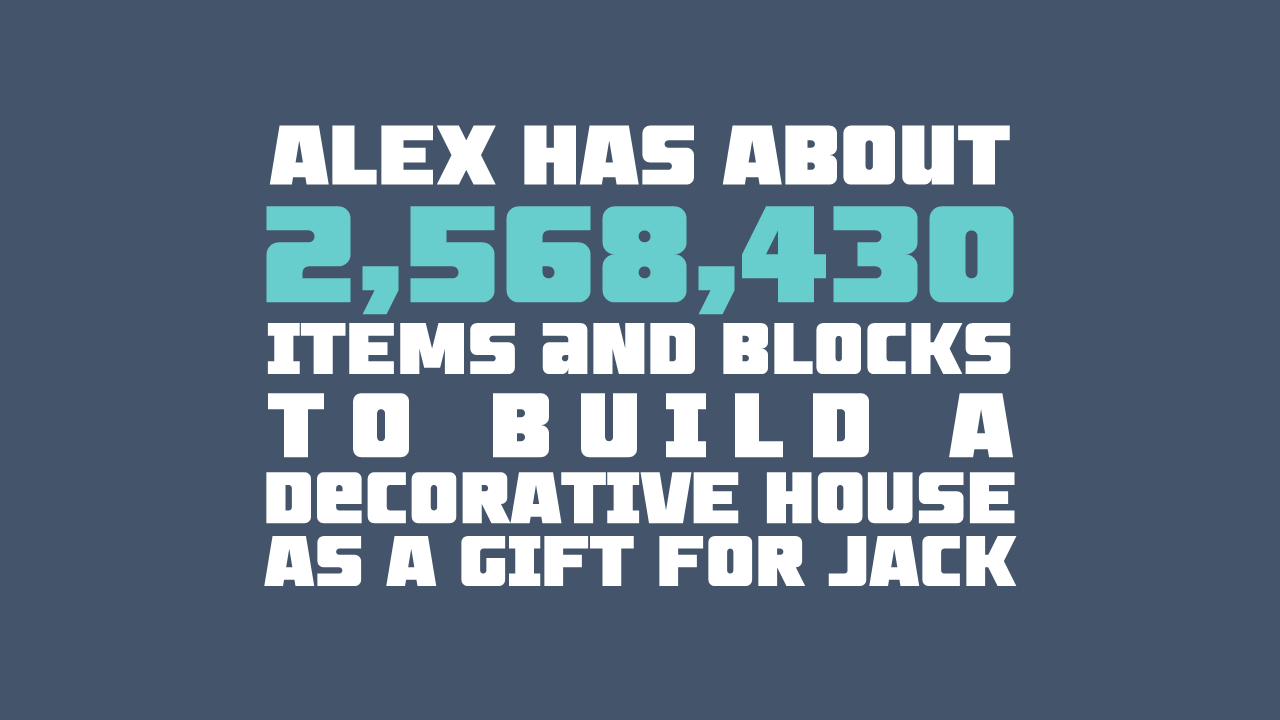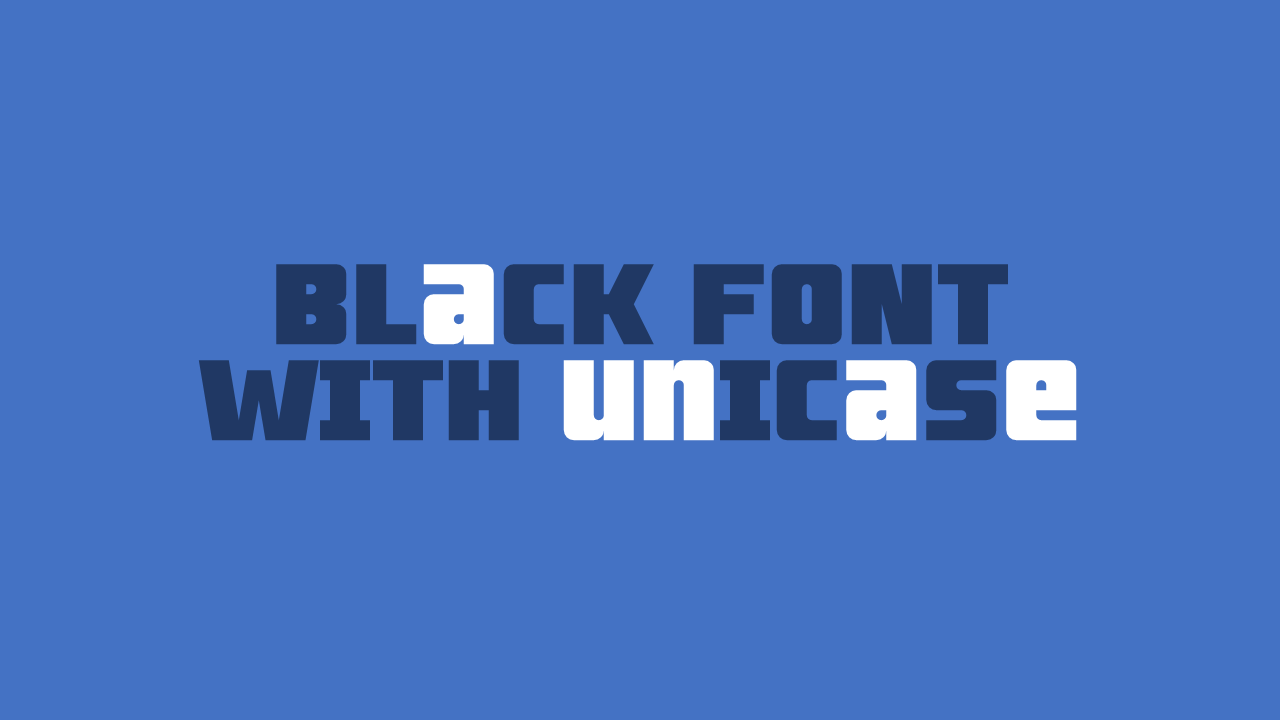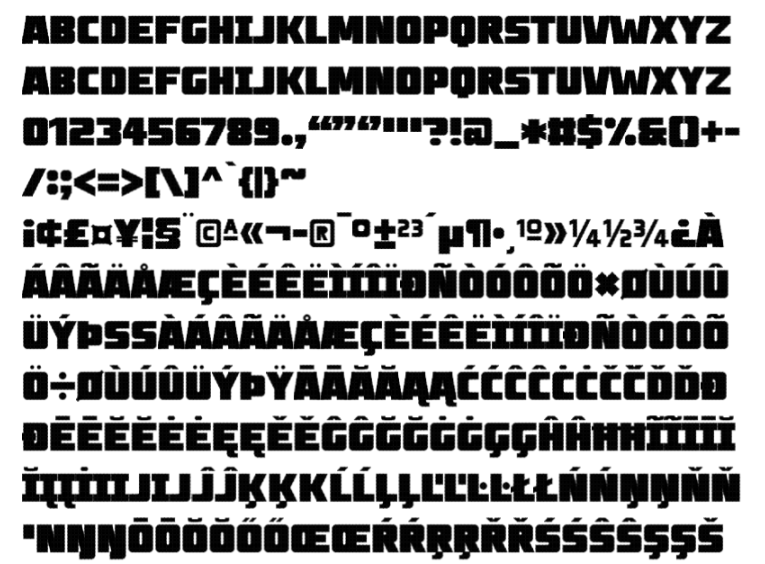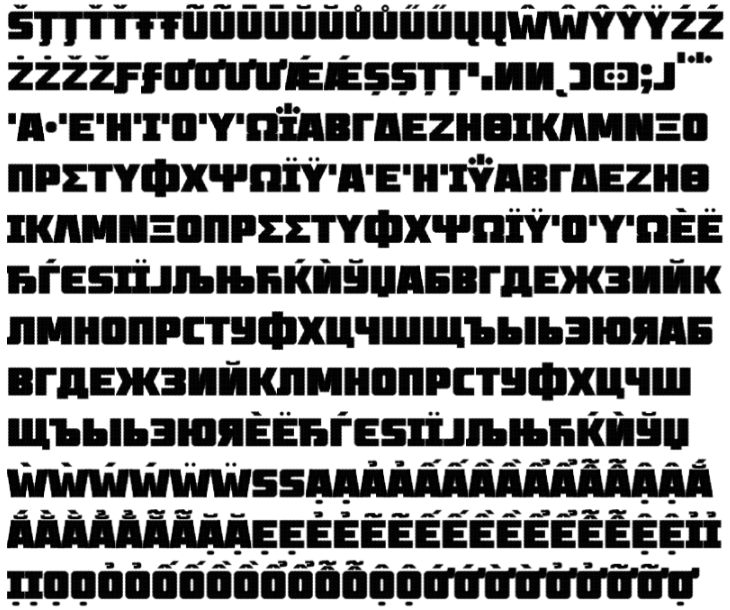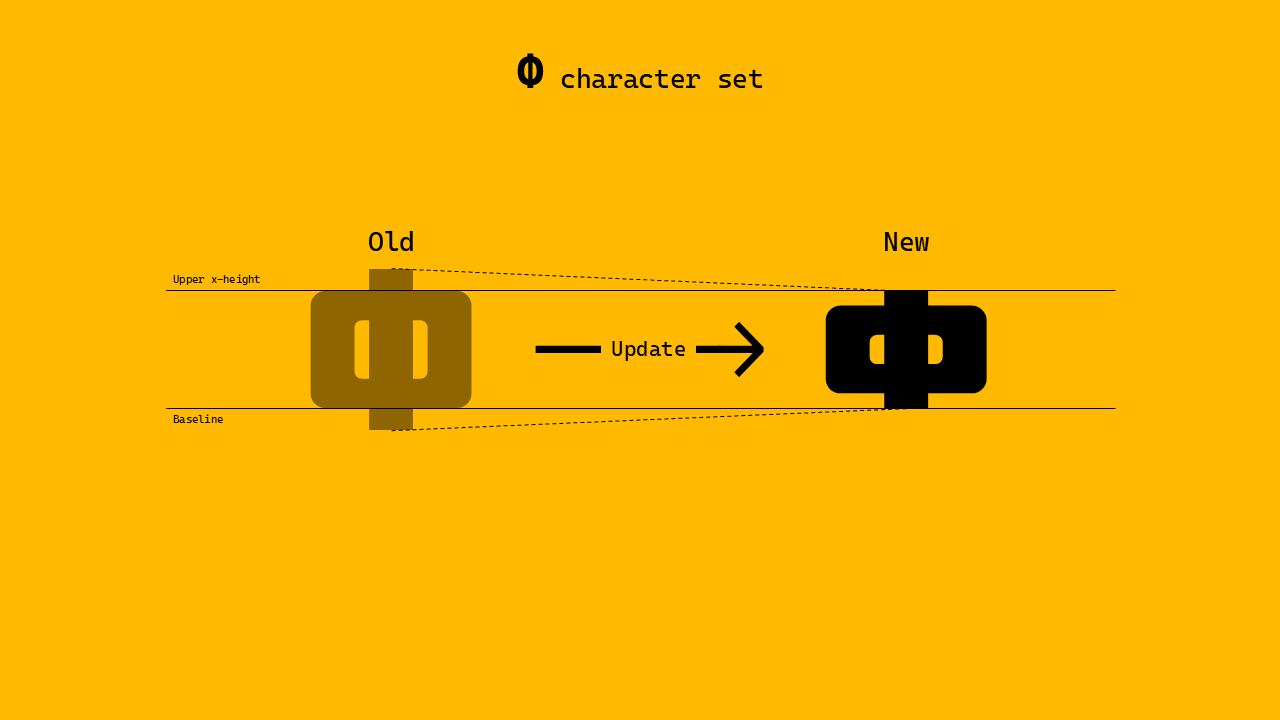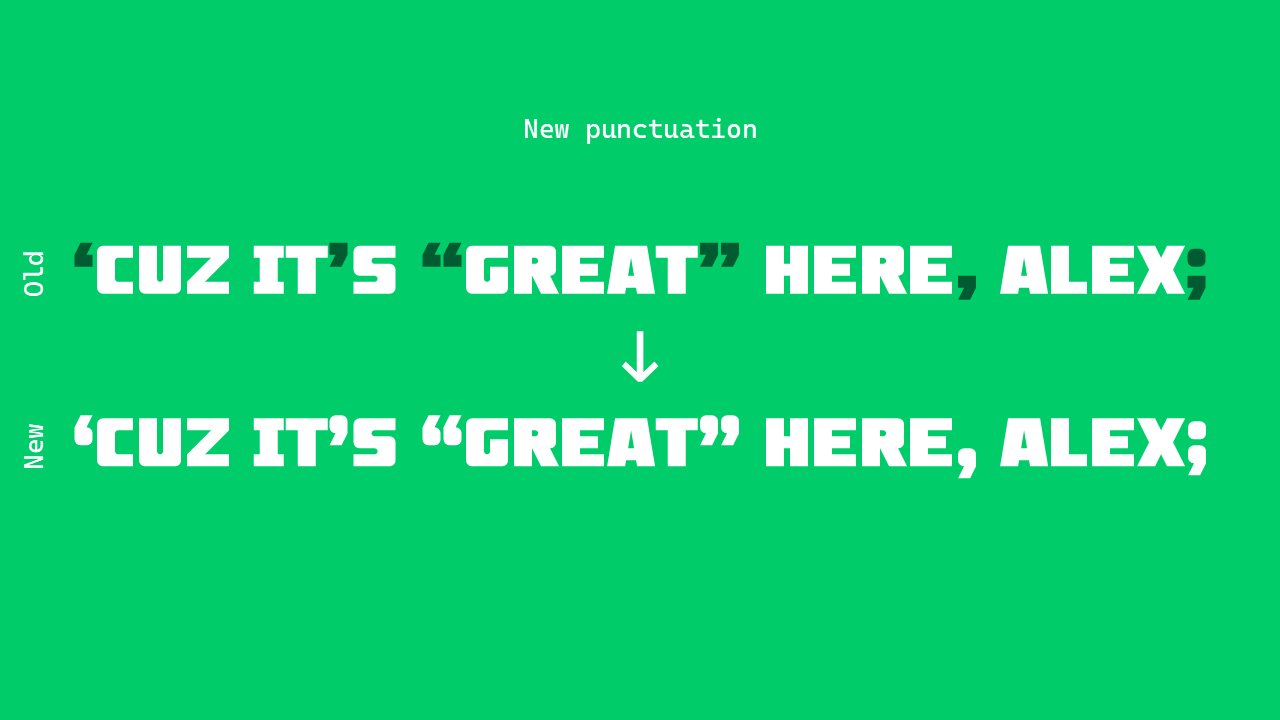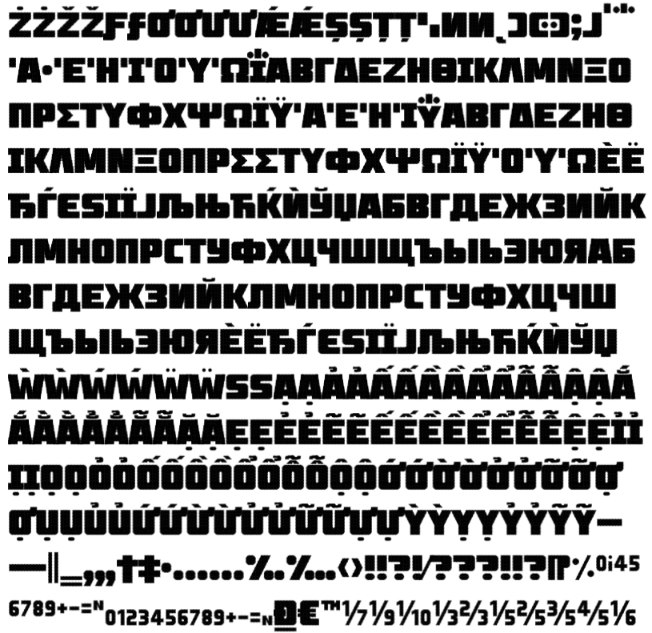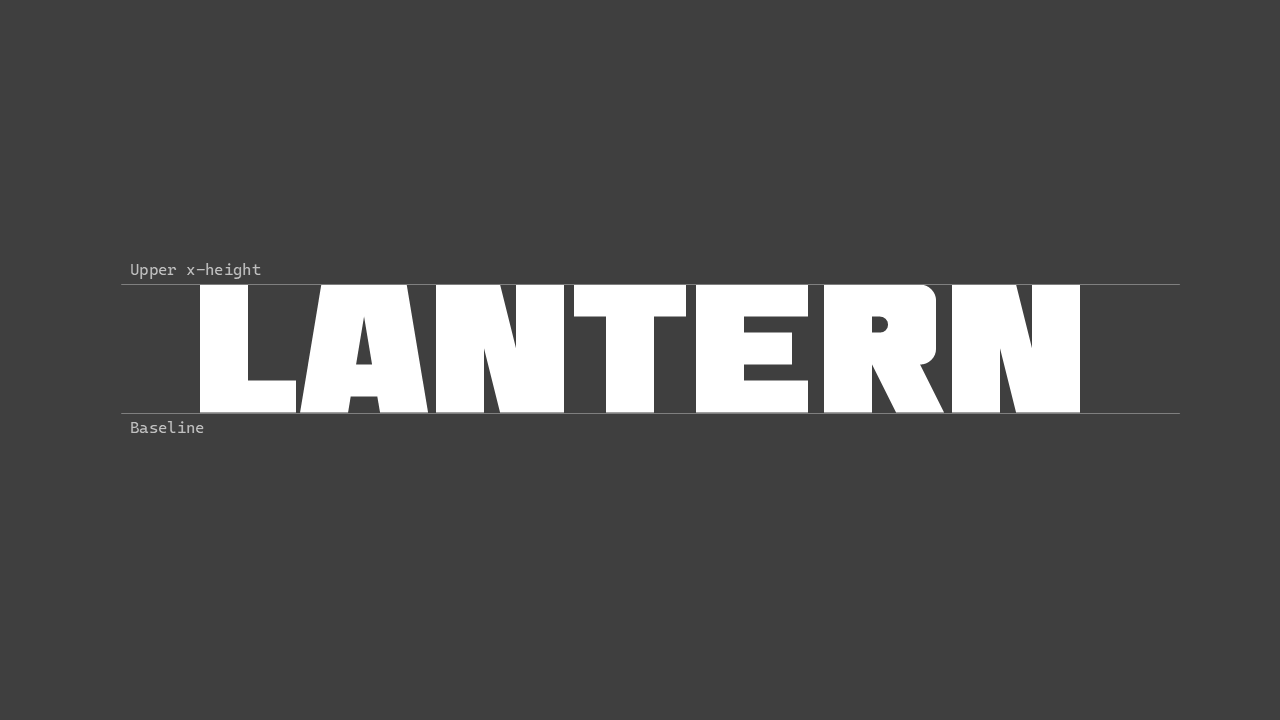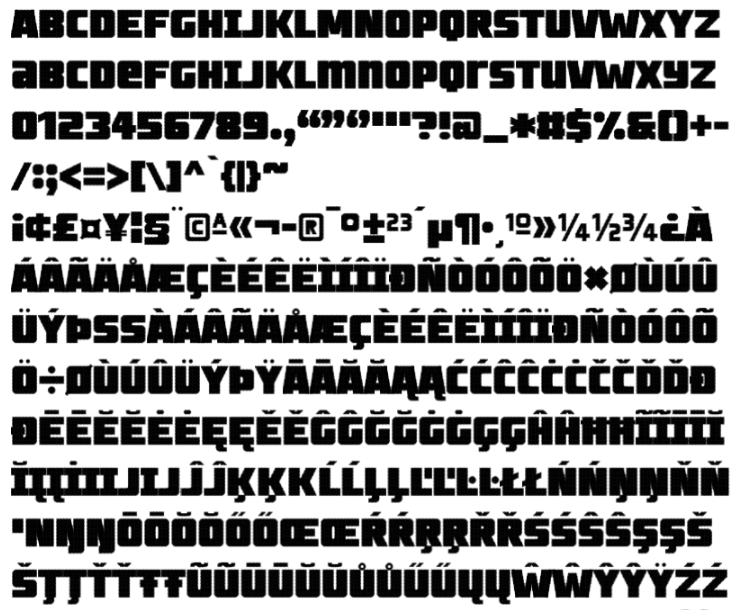
PW-Blacker Grotesk — a heavy geometric sans-serif font with robust language support. Capital-only.
Over 100 language support: Belarusian, Bosnian, Bulgarian, Chechen, Macedonian, Russian, Serbian, Greek, Afrikaans, Albanian, Asu, Basque, Bemba, Bena, Breton, Catalan, Chiga, Colognian, Cornish, Croatian, Czech, Danish, Dutch, Embu, English, Esperanto, Estonian, Faroese, Filipino, Finnish, French, Friulian, Galician, Ganda, German, Gusii, Hungarian, Icelandic, Inari Sami, Indonesian, Irish, Italian, Jola-Fonyi, Kabuverdianu, Kalaallisut, Kalenjin, Kamba, Kikuyu, Kinyarwanda, Latvian, Lithuanian, Lower Sorbian, Luo, Luxembourgish, Luyia, Machame, Makhuwa-Meetto, Makonde, Malagasy, Maltese, Manx, Meru, Morisyen, Northern Sami, North Ndebele, Norwegian Bokmål, Norwegian Nynorsk, Nyankole, Oromo, Polish, Portuguese, Quechua, Romanian, Romansh, Rombo, Rundi, Rwa, Samburu, Sango, Sangu, Scottish Gaelic, Sena, Serbian, Shambala, Shona, Slovak, Slovenian, Soga, Somali, Spanish, Swahili, Swedish, Swiss German, Taita, Teso, Turkish, Upper Sorbian, Uzbek (Latin), Vietnamese, Volapük, Vunjo, Walser, Welsh, Western Frisian, Zulu
Here's a sample of my font with a short paragraph I wrote. I created this image using PowerPoint. Additionally, this image contains unicase characters from a "Private Use Area" block of this font.
The white color of the characters in this image indicates that they are unicase characters, which are located in a "Private Use Area" Unicode block.
Here's a snapshot of all characters in my font
Nice work. I like the unicase way.
Here's a detail of this font
A heavy sans-serif all-caps font, with robust language support; quite a big endeavour. I have several suggestions for improving this work.
Latin set
The letters and numbers look OK with a few exceptions. The capital I doesn't need serifs. It seems odd in this font design. Number 4 looks narrower than the others. This font is not monospaced; you have the liberty to make it wider.
The comma and the period don't match. Rounded or rectangular, they should share the same design.
The bars, strokes and slashes should be consistent across the whole set; these glyphs ($ ¢ £ € ¥ Ð ð đ Ø ø Ħ Ł ł Ŧ ŧ ƀ ђ ћ and more) share strokes with the same style and width.
The section (§) and pilcrow sign (¶) usually go below the baseline.
Diacritical marks: The umlaut/diaresis is tiny. Make it bigger. The cedilla and ogonek are way too big and lack detail. There are more issues I didn't mention for the sake of brevity. [In this blog - Society of Fonts - you will find all details for correct punctuation and diacritics ]
Cyrillic set
The Ф is too big; it should stay within the caps zone. The Ћ and Ђ (from Serbian) are basically capital T letters with some added parts.
Unicase letters are tucked away in the Private Use Area, where nobody will find them. You may simply place them in the lowercase section.
Demo samples look great.
From Frodo7's suggestions, the unicase letter was placed from the Private Use Area to the lowercase section
For some people who like typing with unicase, you can type with lowercase, and for some people who don't like typing with unicase, you can type with uppercase.
Some sans serif fonts, like Verdana and this one at the time of writing this, have the bars on the capital I so as to distinguish it from the lowercase l, like in Ill, Illinois, and Illiad.
P.S. Kazakh has Ь, І, and Ы, but I'm not sure if two letter sequence ЬІ occurs in any Kazakh words…
From Frodo7's suggestions, I edited a Ф character (for both Greek & Cyrillic) to stay within the capital zone.
I know that the uppercase "i" serif type is optional, but I keep the uppercase "i" as a serif type so it can be distinguished clearly.
@PhuWorks (Phú Real): The rules of typeface design are not set in stone. They can be bent or broken. You need a deep understanding of the (Latin or Cyrillic) script to know when to break the rules. Supporting so many languages is very challenging. Usually, I don't create the entire Extended Latin A or B panel; instead, I go through the different languages one by one and consider each language's special needs for accented characters. I also find genuine text samples of that particular language and learn how those accented characters are integrated into the text.
Your design is heavy; that may not leave enough room for all the special letters. I often struggle with Serbian support. The Ћ, ћ and Ђ, ђ need more space for their special parts than my design can accommodate. In that case, I have to drop language support and hope my Serbian brothers and sisters will understand. Sometimes less is more.
You are indeed very brave to support Vietnamese.
@Bryndan W. Meyerholt (BWM): The Ы is a separate letter in the Cyrillic alphabet. It is the hard pair of the soft И. (Likewise, the А and Я; Э and E, etc., are hard-soft pairs of the same vowels.)
• The Greek question mark does not look the same as the semicolon.
• The closing curly quote (”) should be set a little lower than the opening curly quote (“).
I know, we'll edit for all lowercase characters (including with accents) soon
And after we're finished working, we'll fix issues in this font
Unicase finally fixed successfully